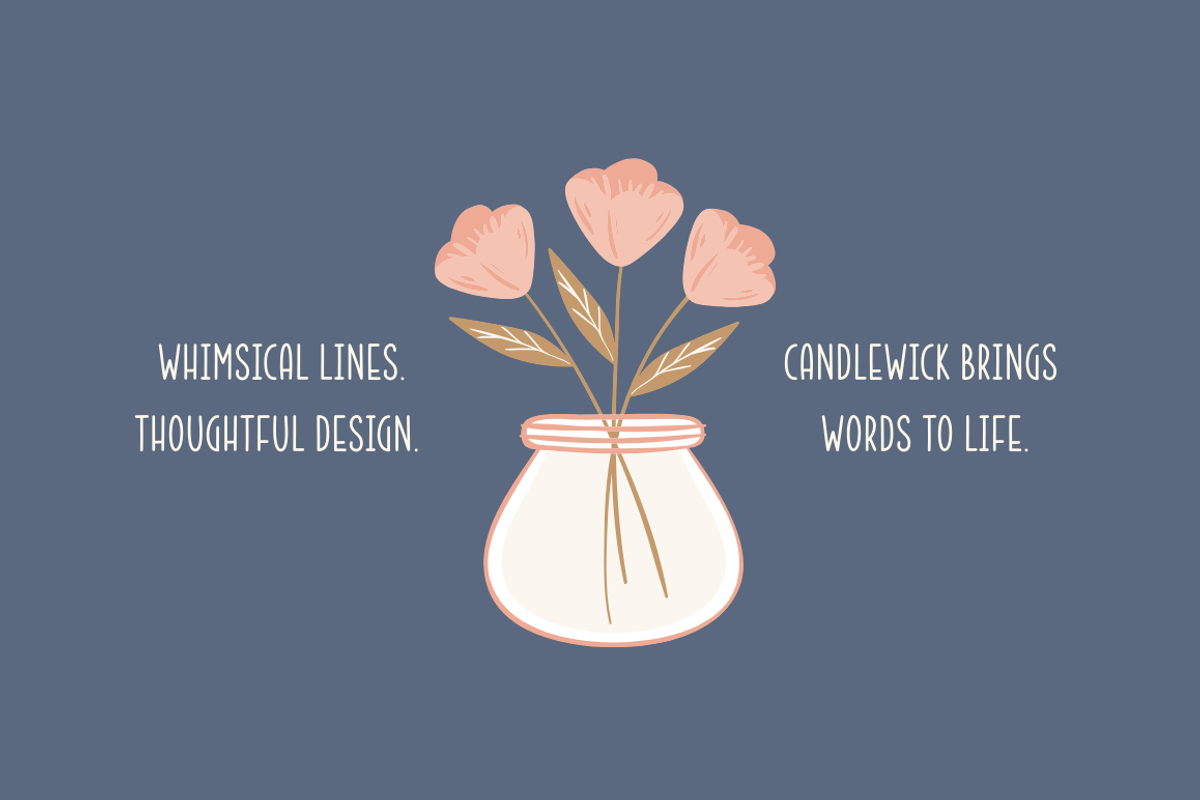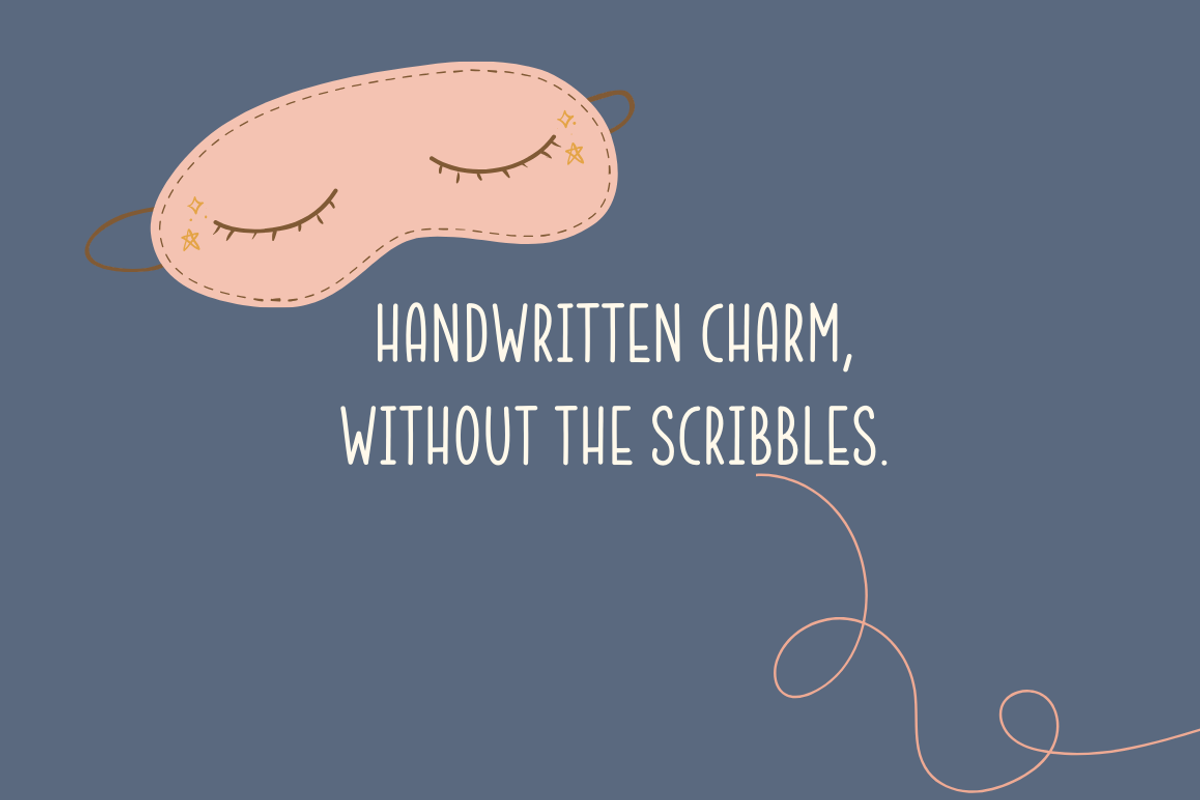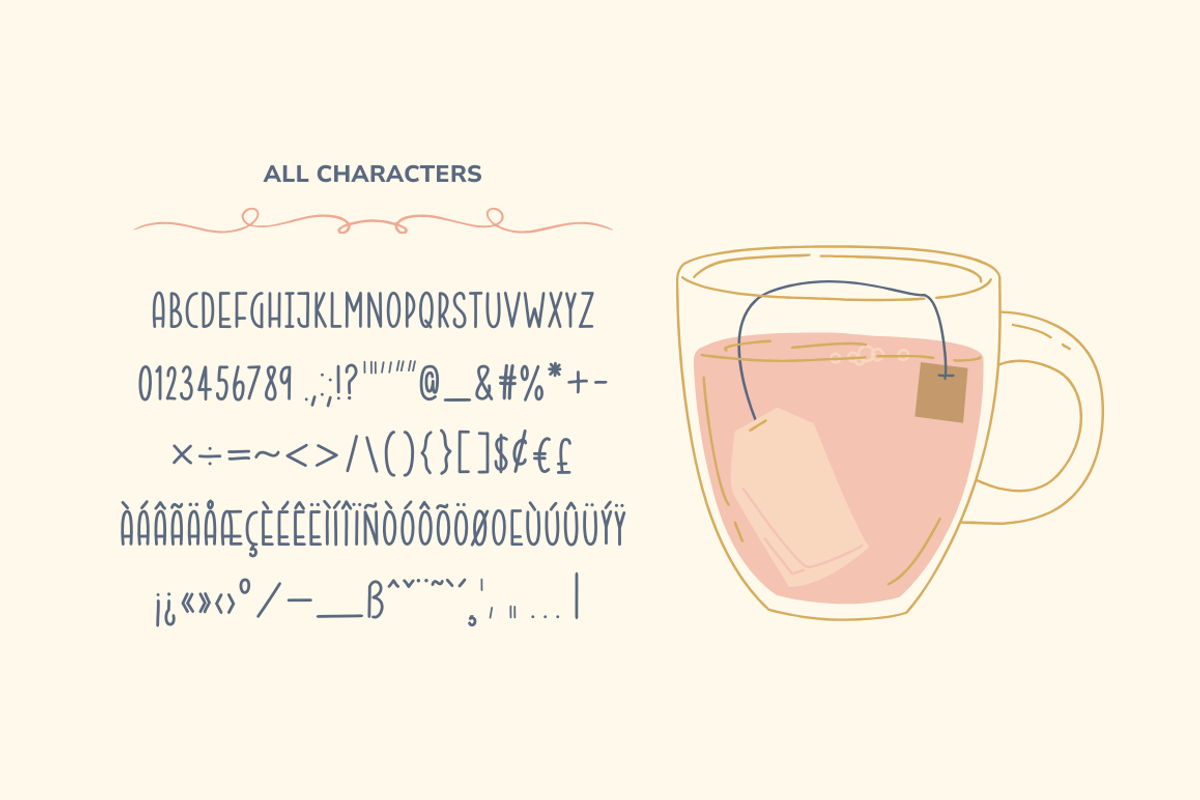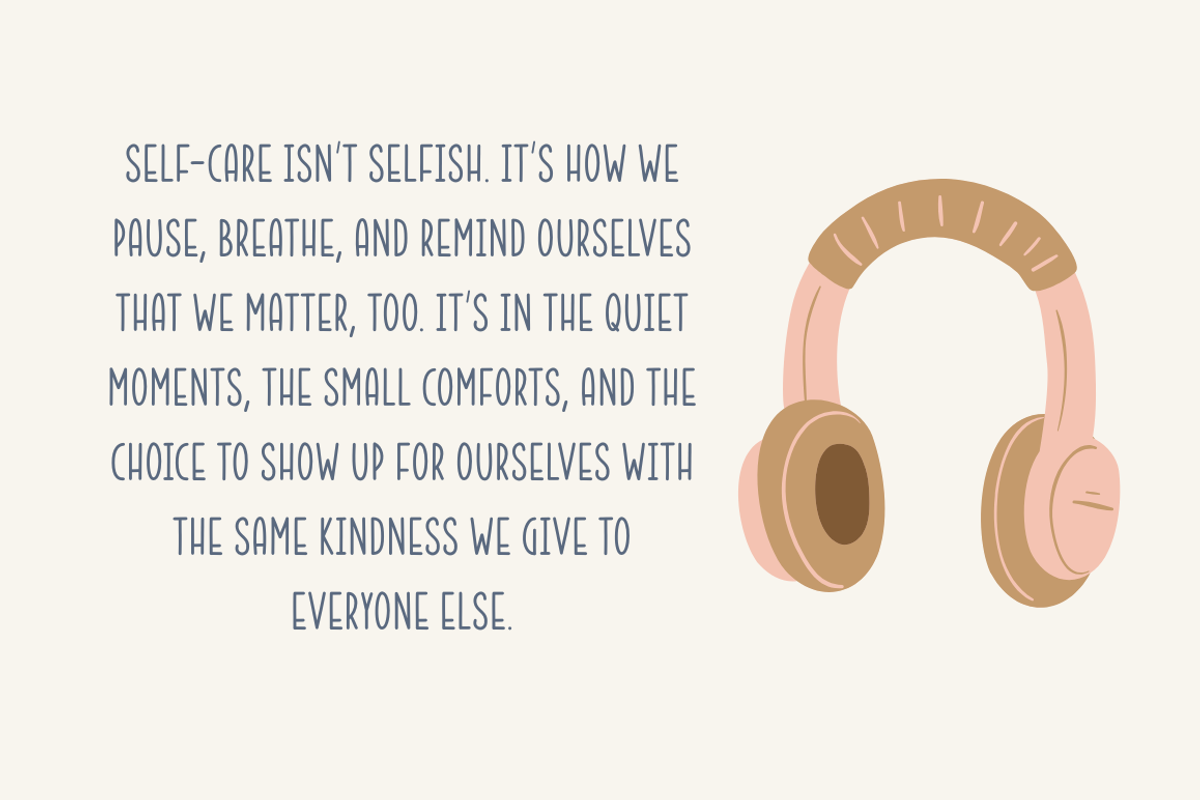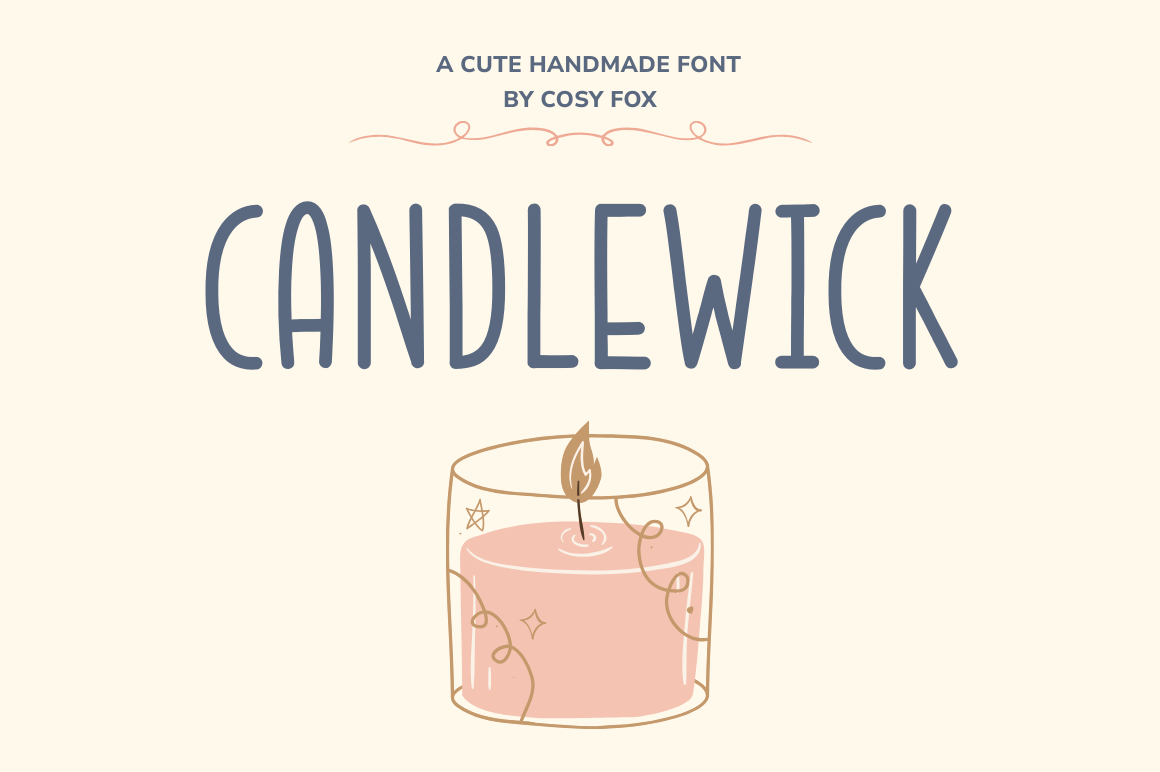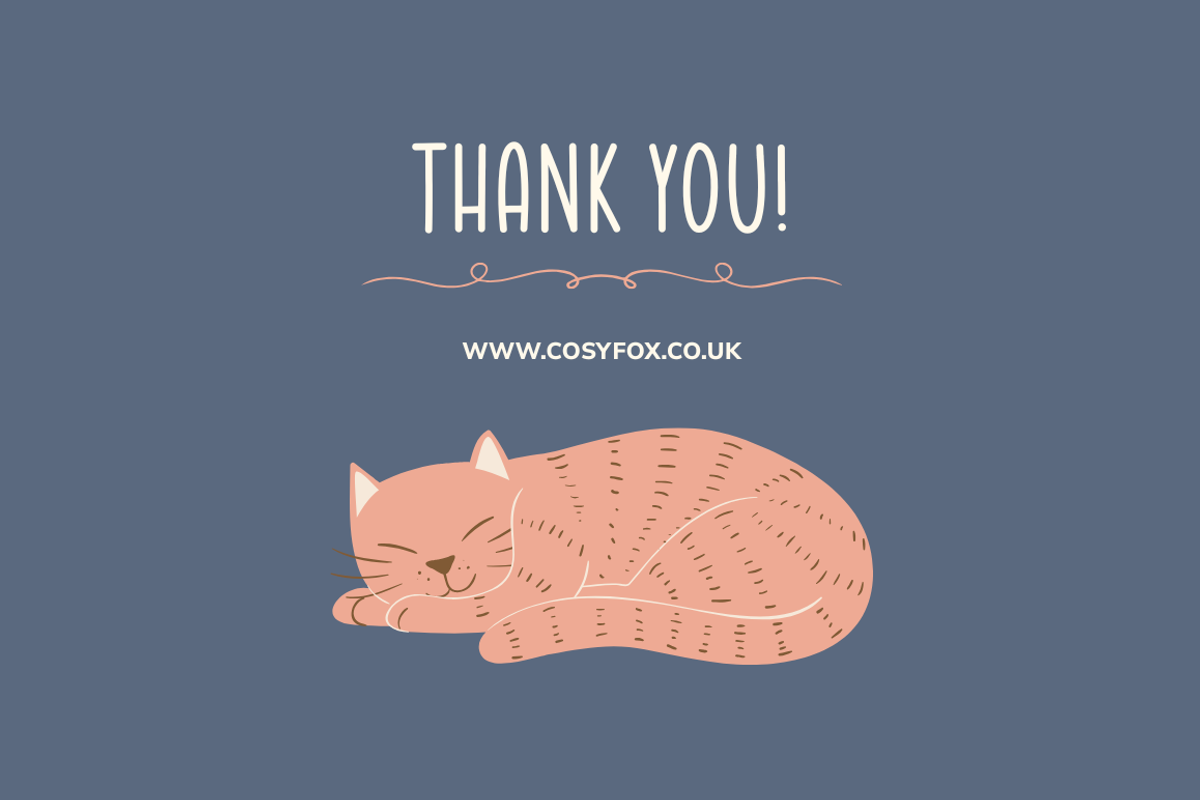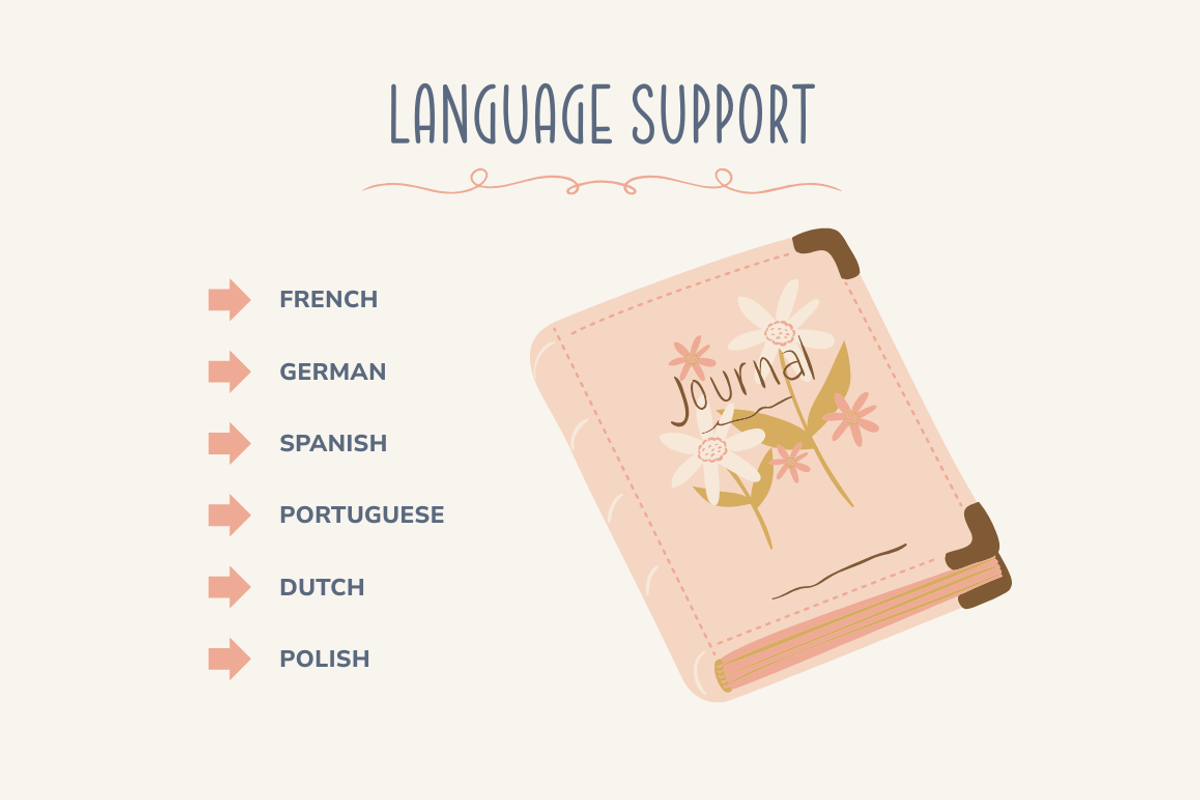
Candlewick Hand-Drawn Font
Candlewick is a breezy, hand-drawn font with a playful spirit and delicate charm. With clean monoline strokes and a tall, narrow shape, it brings the feel of handwriting without the mess. Ideal for quote graphics, children’s products, small business packaging or modern logo marks. Candlewick adds just the right touch of whimsy. It’s all-caps, easy to use, and ready to shine in Canva, Procreate, or your favourite design tools.
Perfect for when you want your words to feel hand-touched and heartfelt.
Language Support
French, German, Spanish, Portuguese and Italian.